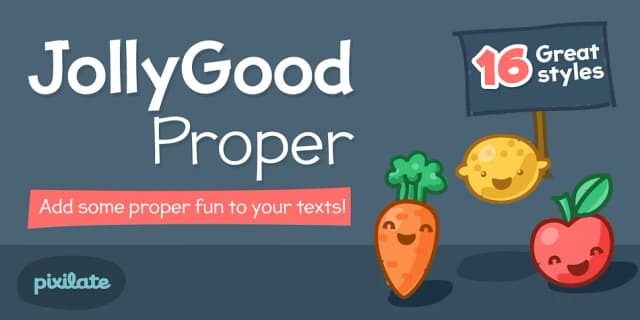
1 / 7About JollyGood Proper Unicase Font
JollyGood Proper Unicase by Letradora is a decorative typeface built for playful, attention-grabbing headlines that work best in all-caps settings. The unicase design (where capital and lowercase letterforms are unified into a single height) gives it a consistent, energetic feel that balances boldness with warmth and approachability. Unlike multi-case fonts that require you to choose between caps and lowercase options, this one delivers friendly legibility regardless of your specific text application.
The font excels across several practical applications: wedding invitation suites where playfulness complements sophisticated layouts without compromising elegance, indie book covers where personality and visual distinctiveness matter most, small-batch product labels for handmade goods (ceramics, candles, artisanal foods, craft supplies), and eye-catching social media header graphics. Its comprehensive character set includes full support for Western and Central European languages, so multilingual projects won't force you into font-swapping compromises or workarounds. You get a wide range of glyphs built in, meaning fewer headaches when setting type for international audiences or when specialty characters come into play.
JollyGood Proper Unicase Font is a decorative font that shines as a display or heading face. Pair it with a clean sans-serif or serif font for body text β the contrast creates a clear hierarchy while the two styles stay balanced and easy to read.
JollyGood Proper Unicase Font
by Letradora